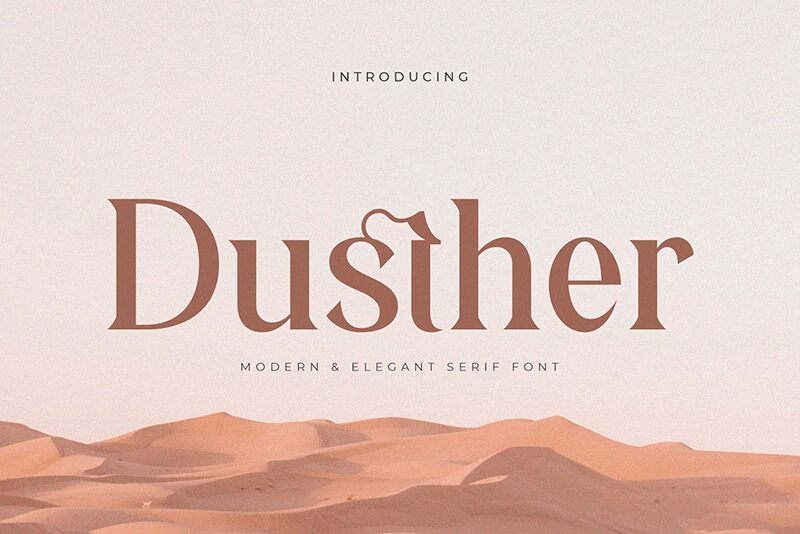
Dusther, a modern serif font designed by BrandSemut, is the perfect typeface for any project that needs to exude sophistication and elegance. With its clean lines and sharp edges, this semi-bold font captures attention with ease. Its unique characteristics make it suitable for various projects such as branding materials, editorial design, packaging, and even website headers. Dusther's versatility allows it to be paired with both sans-serif and script fonts while maintaining its contemporary feel. Its narrow width makes it an excellent choice for body text in print materials such as magazines and brochures. Elevate your designs with Dusther today!
Dusther